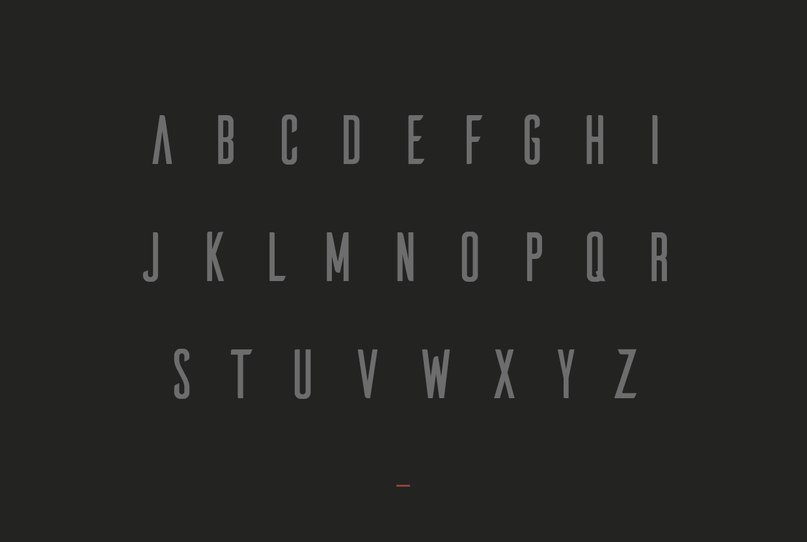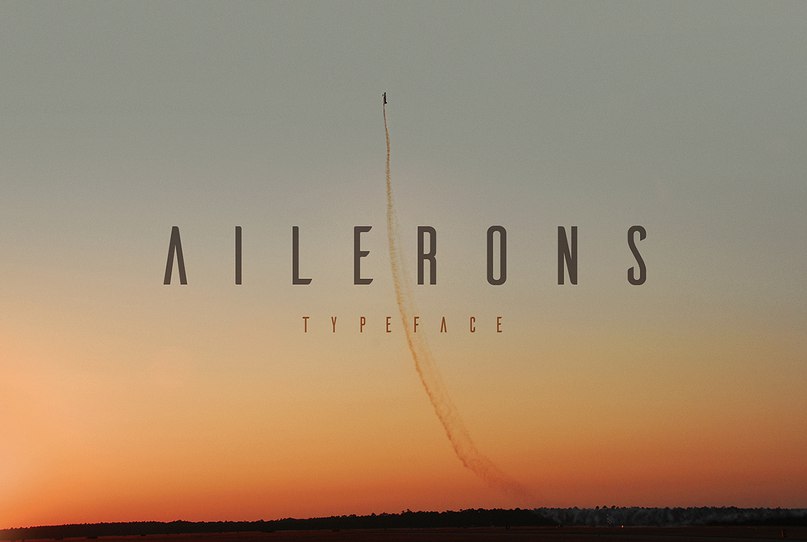
Ailerons Font
Ailerons Font is a smooth grotesque typeface family that carries a primarily based view and is gorgeously embellished This is also listed in the google fonts. With this font‚Äôs generous spacing and exceptional system, that looks like a zootopia font you can without a hassle create any designs of your preference in a way to provide gold-popular pleasantness and legibility. It’s far an unfastened font. The font family is very common for many kinds of logo deisgs.
You will see that lots of extraordinary factors that this font form can gift and it has lots of font weights handy properly.